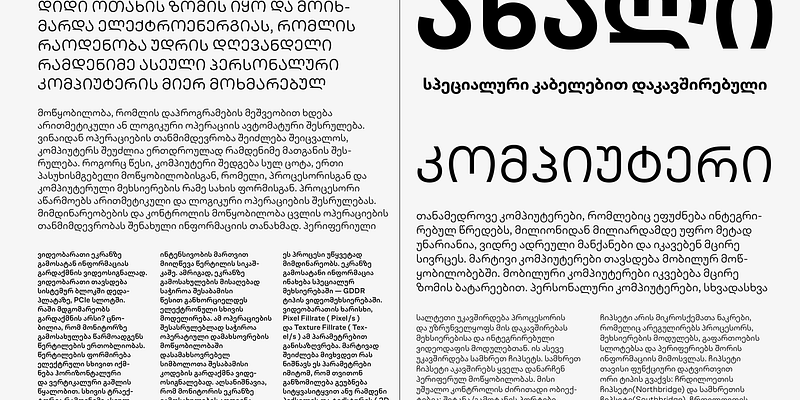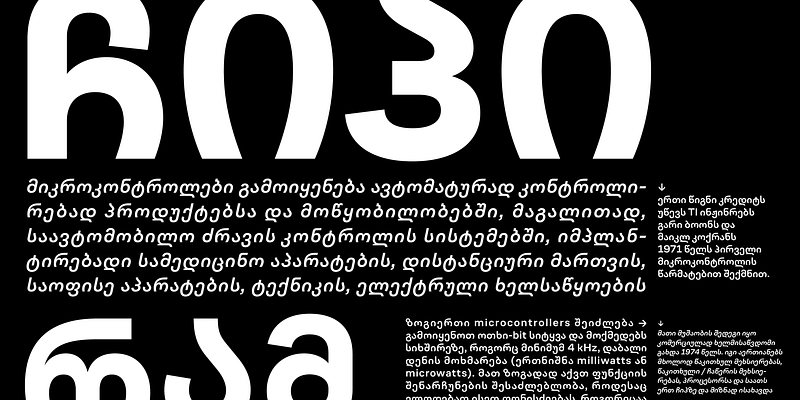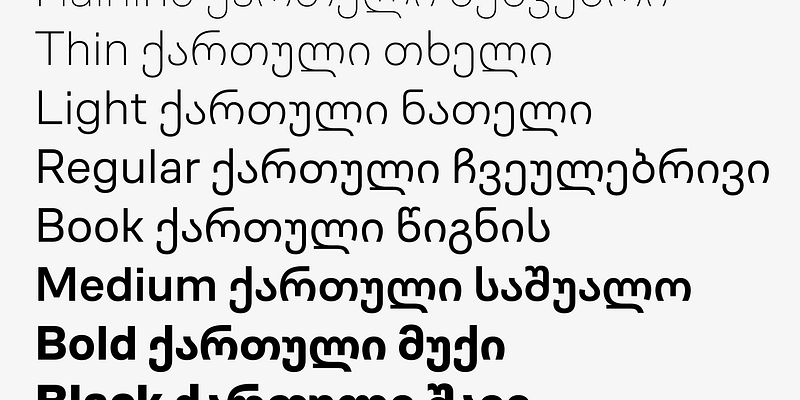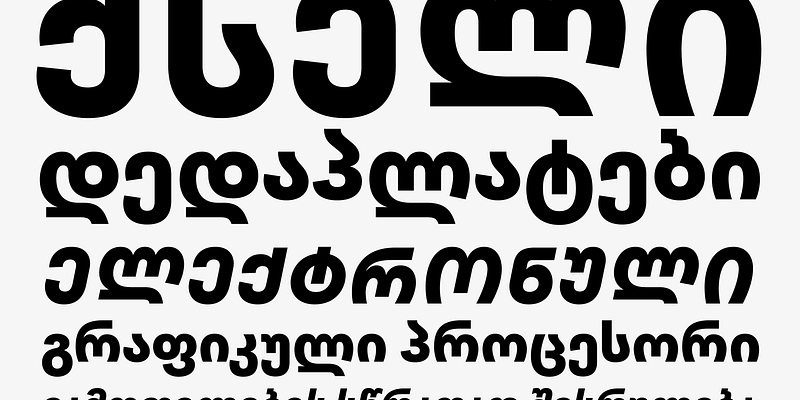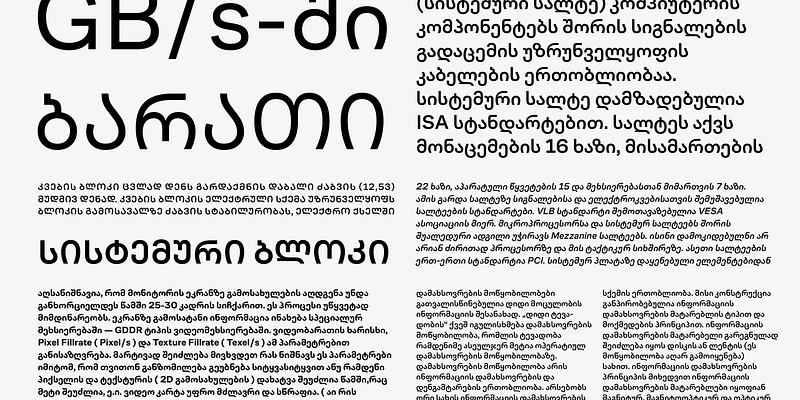
CoFo Sans Georgian is built on the clean, rational foundations of the CoFo Sans family. It follows the same balance of structured simplicity and expressive detail, preserving the character of the original typeface—offering clarity, functionality and subtle personality without forced neutrality.
Designed for multiscript use, it is carefully tuned to work alongside other scripts. Slightly extended ascenders and descenders, combined with a shorter x-height than the Latin, help maintain consistent rhythm and texture while respecting Georgian letterforms. Open shapes, a touch of squareness and gentle playfulness give it a contemporary, confident tone.
Optimized for digital use, it performs reliably across screens—from interfaces to longer reading—where clarity and efficient vertical spacing are key.
Contrast Foundry is a studio focused on designing letterforms in all their incarnations.
The studio was founded by Maria Doreuli in 2014, initiated by a collaboration with Liza Rasskazova. Yet the online collection of fonts only became available through contrastfoundry.com at the end of 2018. In the past years the full-time team grew from 2 to 7 people, as the studio was joined by Nikita, Anna, Egor, Anastasia, and Tasya. All team members have a background in design, yet they specialize in different fields from management to calligraphy and typeface engineering.
The team may be based in different locations, yet everyone is still working closely together. CoFo works across the ocean, overcoming borders, time, and any other obstacles in its path, creating a strong united team of motivated individuals. CoFo’s work is built on contrasts. It designs both eccentric display typefaces and neutral classics. The designers focus on retail fonts, with a passion for creating challenging custom typefaces and lettering for their clients.
CoFo runs an independent studio and offers its own educational programs for graphic and type designers via Type Design Workshop. Contrast Foundry was created out of love for letterforms and to share the excitement, passion and care about typeface design with the people around.